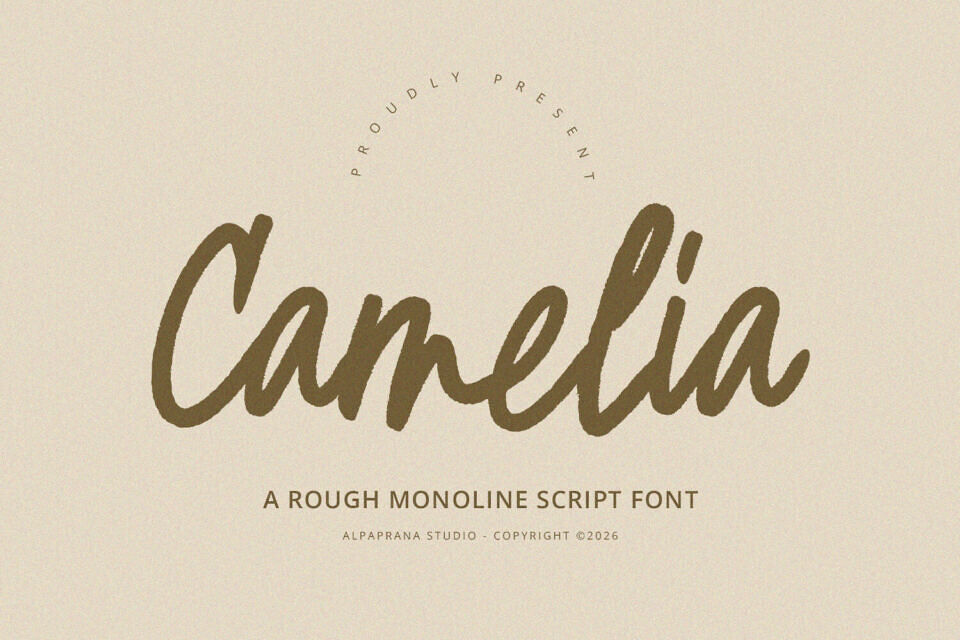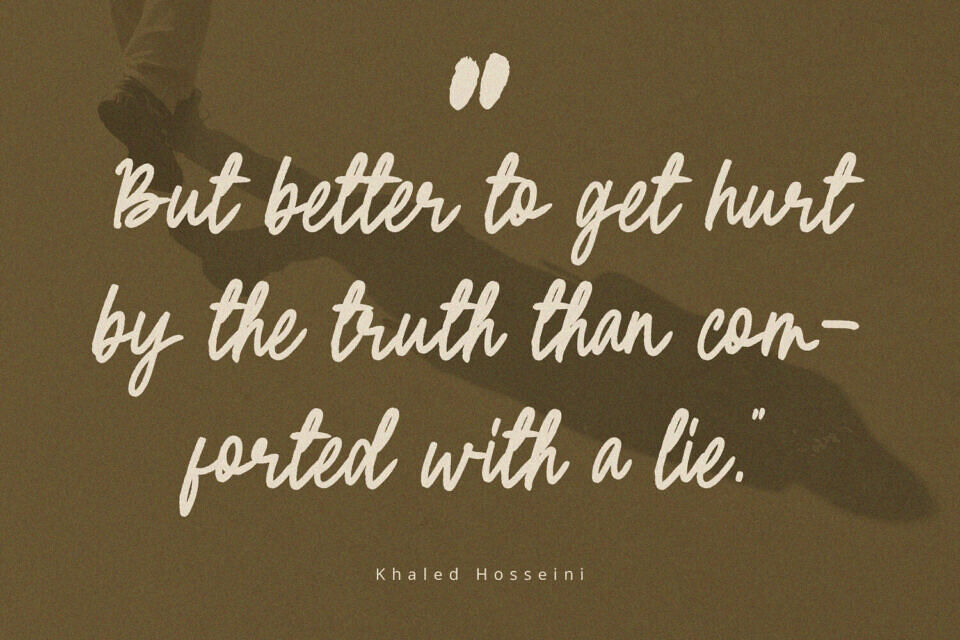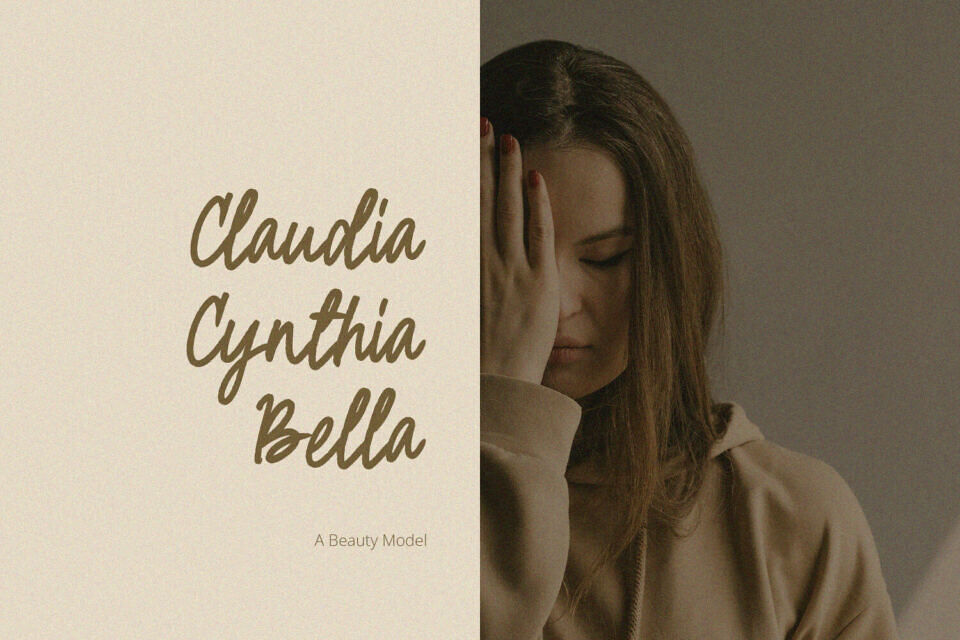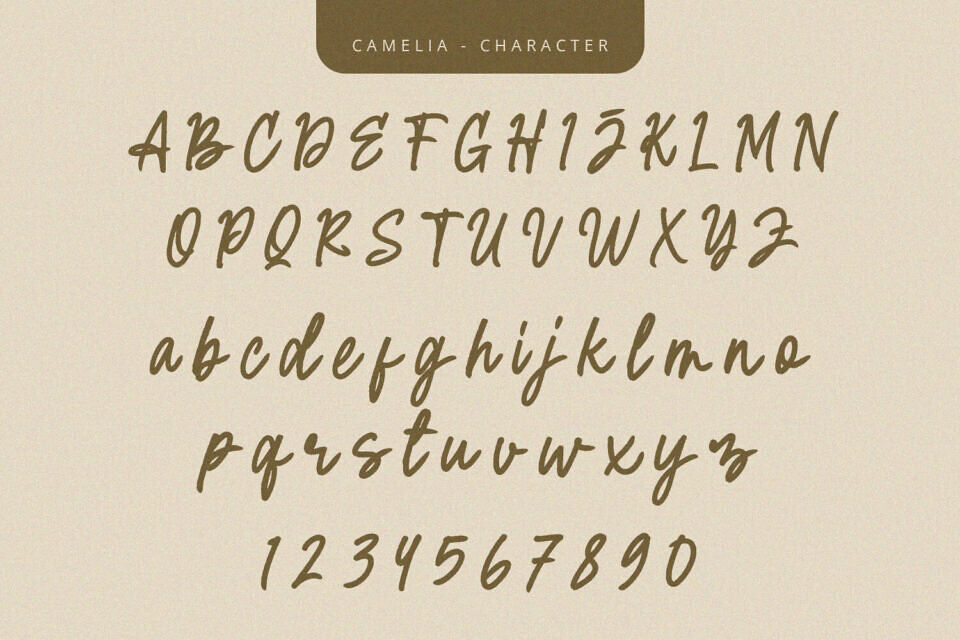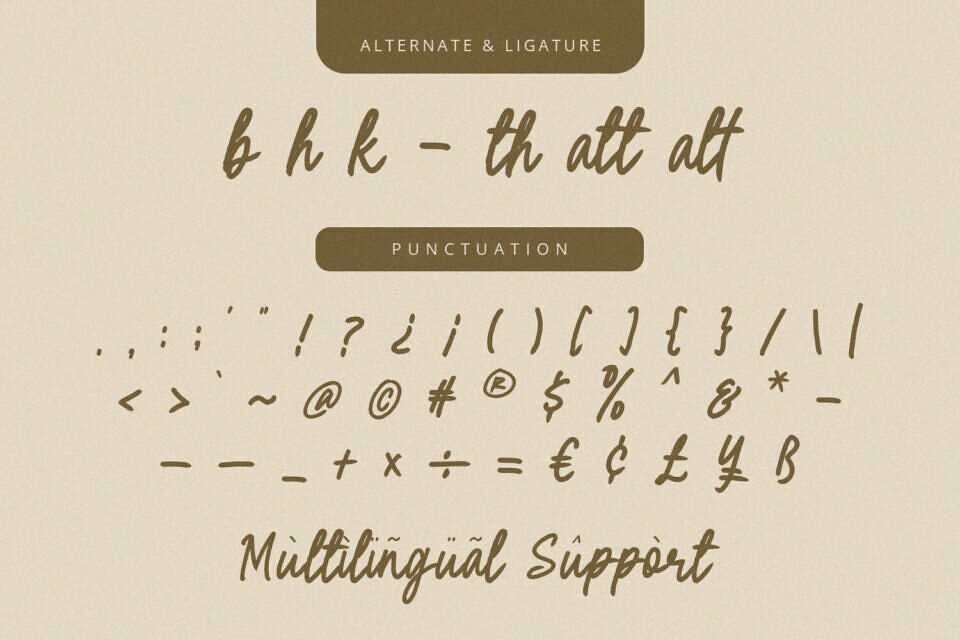
Camelia is a distinctive, modern script font. It’s ideal for various design projects, including branding, logos, and lettering, as well as packaging, clothing, and magazine design. Its versatility also makes it suitable for posters, book covers, photography, and event materials, adding a touch of elegance to any visual element.